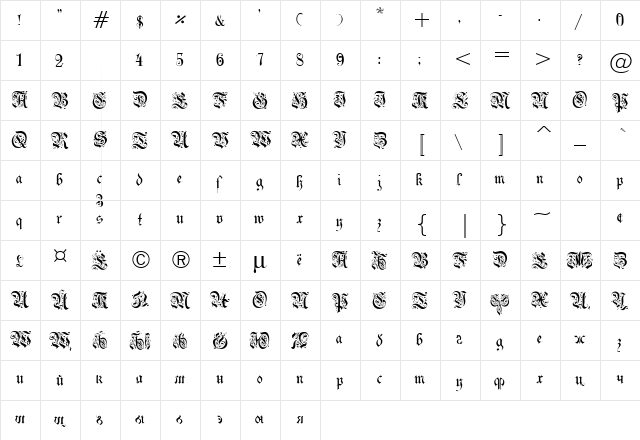
DrPoDecorRu Regular
| Designer | Dr. Alan N. Po (>3@51=>9) |
| Year | 1989 |
Design Context for DrPoDecorRu Typeface
DrPoDecorRu is a composed and adaptable typeface that performs quietly and consistently across a wide range of design contexts.